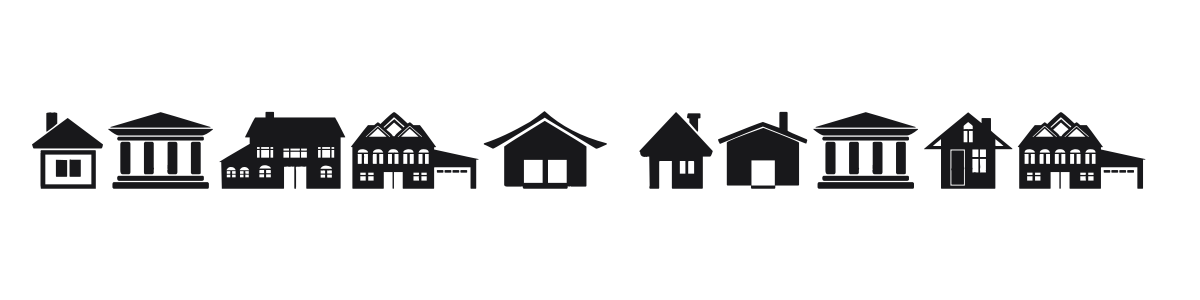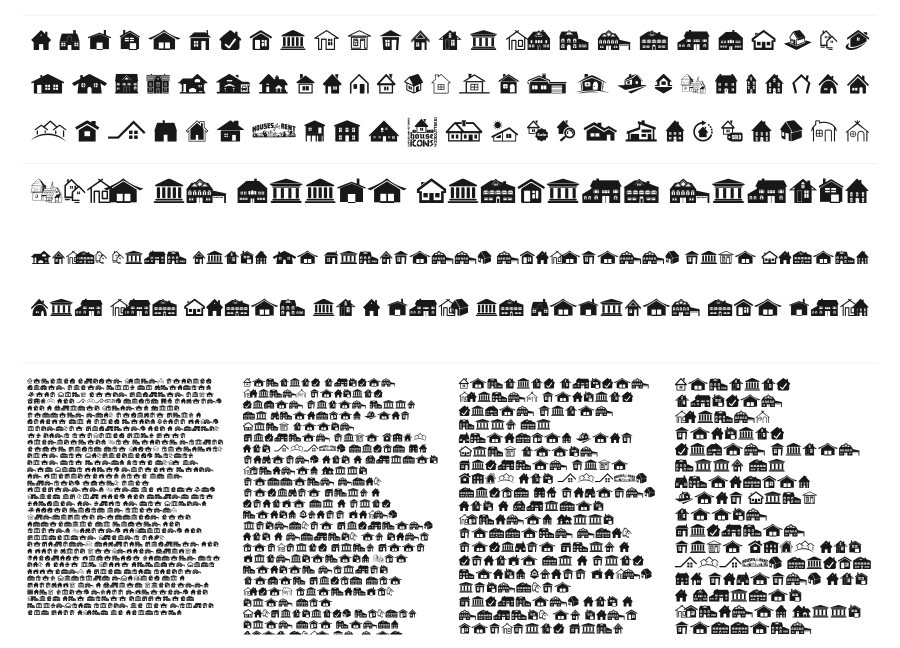
House Icons
House Icons is a dingbat font by Woodcutter featuring a collection of solid black house and building silhouettes mapped to keyboard characters. The set spans humble cottages to columned institutional buildings, all rendered in a clean, flat graphic style at uniform scale. A ready-made toolkit for real estate, architecture, and property-related design work.